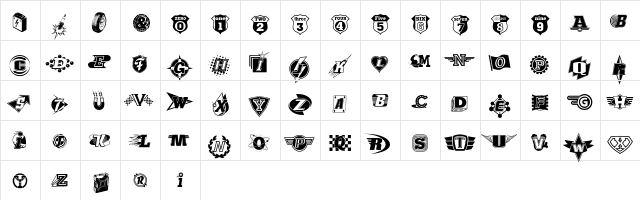
IndyFunfhundert Regular
Design Context for IndyFunfhundert Typeface
IndyFunfhundert trades formality for fun, with bouncy, characterful letterforms that bring warmth and energy to any project.
Font Pairing: Pairs well with a rounded or humanist sans for body copy, maintaining the friendly tone without relying on IndyFunfhundert to carry extended reading.
Pro Tip: Use IndyFunfhundert at larger display sizes where its expressive character can land. Pair with a clean, simple sans for body copy to maintain readability.